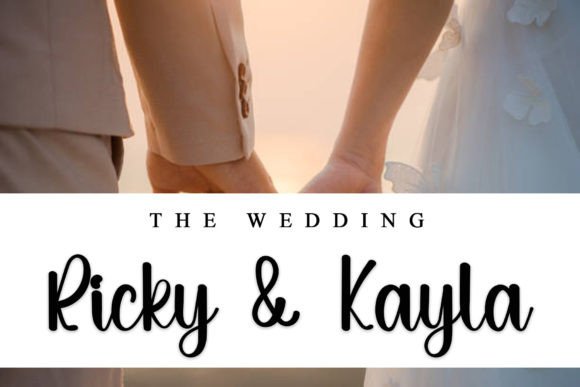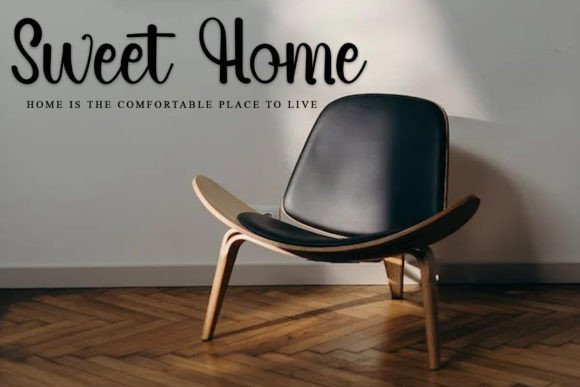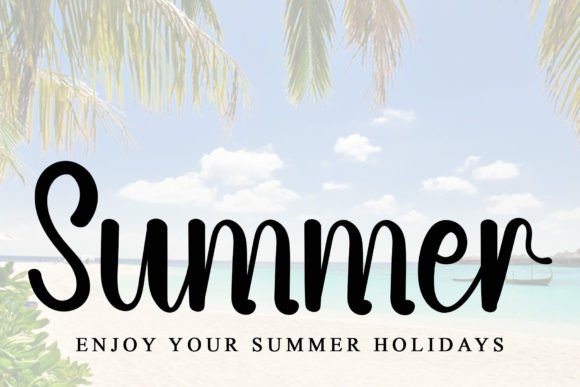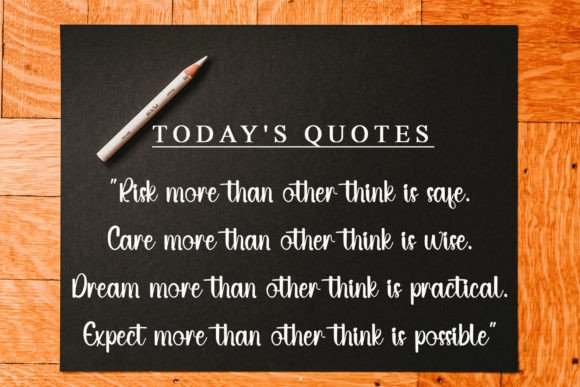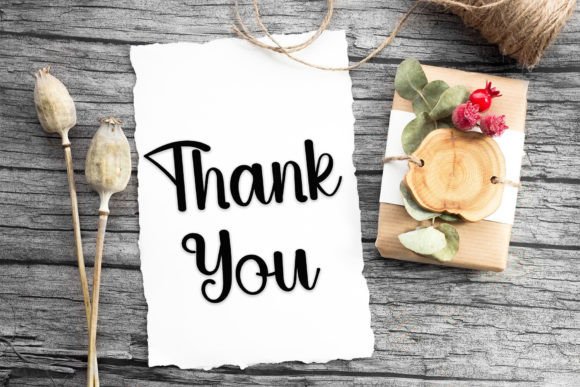
The Magic of Fantasy Font: A Designer’s New Best Friend
I’ll never forget the time I was working on a branding project for a luxury wedding planner. I had the logo concept nailed, but the font I was using just wasn’t cutting it. It was either too generic or too over-the-top, and I couldn’t seem to find that sweet spot. That’s when I stumbled upon Fantasy Font, and let me tell you, it was love at first sight! 💕
With its exquisite handwritten style and masterful blend of classy calligraphic influences, Fantasy Font instantly elevated my design to new heights. It felt contemporary, fresh, and – most importantly – uniquely elegant. If you’re a designer, crafter, or creative hobbyist looking for a font that will make your projects shine, you’re in the right place!
So, what makes Fantasy Font so special? Here are a few things that have won me over:
- ✨ Exquisite handwritten style that’s perfect for luxury brands or high-end projects
- ✅ Classy calligraphic influences that add a touch of sophistication
- 💫 Contemporary and fresh feel that’s sure to turn heads
- 🎉 Highly versatile: works beautifully for titles, headings, and even body text
Of course, no font is perfect, and Fantasy Font does have a few minor quirks:
- 🤔 Some users may find the font a tad too ornate for very casual or playful projects
- ⚠️ May not be the best choice for very long blocks of text, as it can be a bit eye-catching
The Story Behind Fantasy Font
While the true story behind Fantasy Font remains a mystery, it’s easy to imagine that it was crafted with love and care by a talented type designer. Perhaps they drew inspiration from the world of calligraphy, combining traditional techniques with modern digital tools. Whatever the story may be, the end result is a font that’s both timeless and fresh.
| Is Fantasy Font suitable for body text? | While Fantasy Font is stunning for titles and headings, it may not be the best choice for long blocks of body text. However, it’s ultimately up to your personal preference and project requirements! |